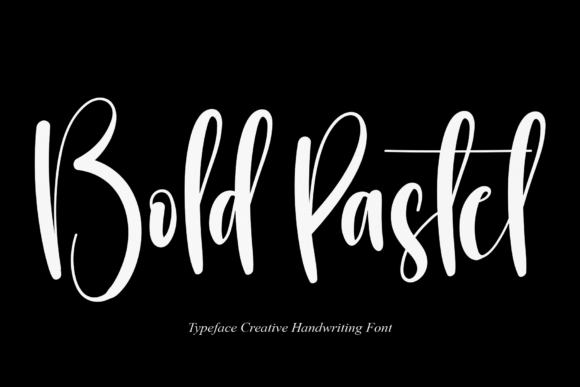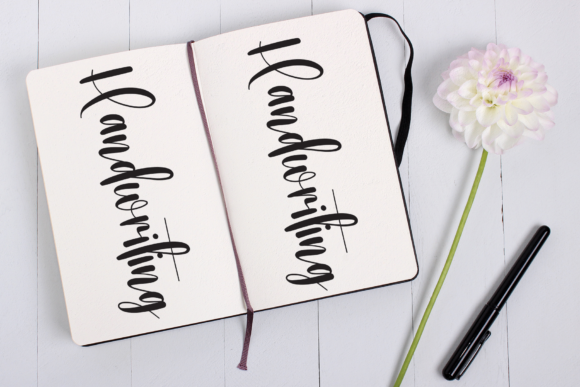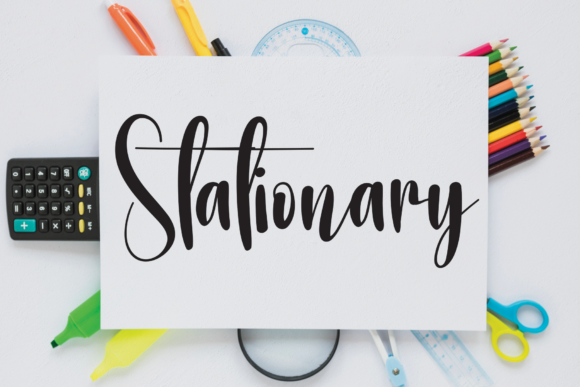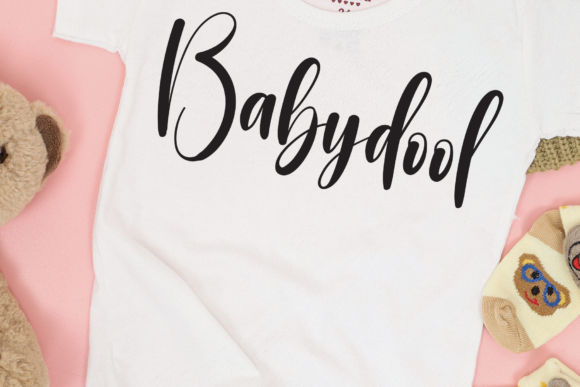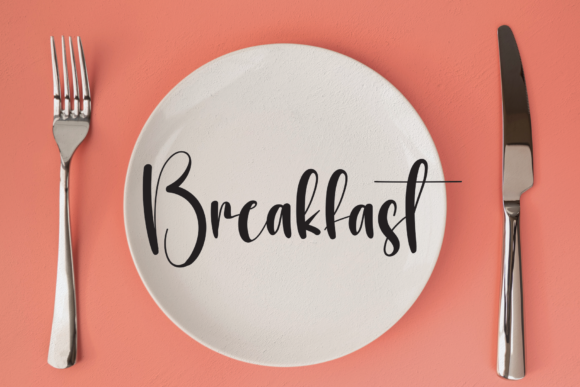
Unleashing the Magic of Handwritten Design
Have you ever been working on a design project and suddenly, a spark of creativity hits you? You see a beautiful color palette, a clever composition, and a typography that brings it all together. That’s exactly what happens when you choose the right font – and for designers, that font is often the Bold Pastel Font. This lovely and timeless handwritten font is a game-changer for creating eye-catching logos, branding, and quotes that leave a lasting impression.
| 📌 Product Name | Bold Pastel Font |
| 👤 Author | Inspekelement.ST |
With its unique and beautiful touch, the Bold Pastel Font makes your design come alive! Whether you’re a seasoned designer or just starting out, this font is a valuable addition to your toolkit. It’s the perfect choice for adding a touch of personality and whimsy to your work, and its versatility makes it suitable for a wide range of projects and styles.
Bold Pastel Font Key Features
- Unique Characteristics: Unique pastel color palette with 12 bold font styles, perfect for creative and playful designs
- Font Weight: Available in bold weight, with varying levels of boldness for added flexibility
Bold Pastel Font Review
I’ve had the chance to work with the Bold Pastel Font, and I’m excited to share my thoughts on it. Overall, I think it’s a great addition to any design project, but it’s not without its limitations.
- ✨ Unique aesthetic: The pastel colors and bold typography make for a visually appealing combination that’s sure to grab attention.
- ✨ Versatile: The font is suitable for a wide range of projects, from branding to marketing materials.
- ✨ Easy to read: Despite its bold nature, the font remains easy to read, even at smaller sizes.
- ⚠️ Limited character set: The font’s character set is somewhat limited, which may cause issues for projects that require a wide range of special characters.
- ⚠️ Not suitable for all audiences: The pastel colors may not be suitable for all audiences, particularly those who prefer more traditional or muted color schemes.
Overall, I think the Bold Pastel Font is a great choice for designers who want to add a touch of personality to their projects. While it has some limitations, its unique aesthetic and versatility make it a valuable addition to any design toolbox.
To get the most out of the Bold Pastel Font in PowerPoint and Word, use it for headings and titles to create a professional and cohesive look.
The Bold Pastel Font is ideal for:
– Infographics
– Brochures and flyers
Alternative Fonts to Bold Pastel Font
Great Vibes is a modern script font that offers a similar playful and whimsical feel to Bold Pastel Font. It’s perfect for creating a fun and lighthearted atmosphere in designs such as invitation cards, social media graphics, and advertisements.
Comparison: Great Vibes has a more organic and handwritten feel compared to Bold Pastel Font, which is more geometric and digital. Great Vibes is also more versatile and can be used in a wider range of design contexts.
Alex Brush is a beautiful script font that conveys elegance and sophistication. It’s ideal for creating a high-end and luxurious feel in designs such as wedding invitations, luxury branding, and packaging.
Comparison: Alex Brush has a more refined and polished feel compared to Bold Pastel Font, which is more playful and casual. Alex Brush is also more suitable for formal and professional design contexts.